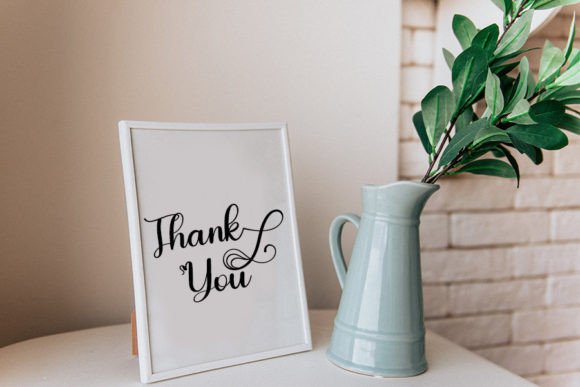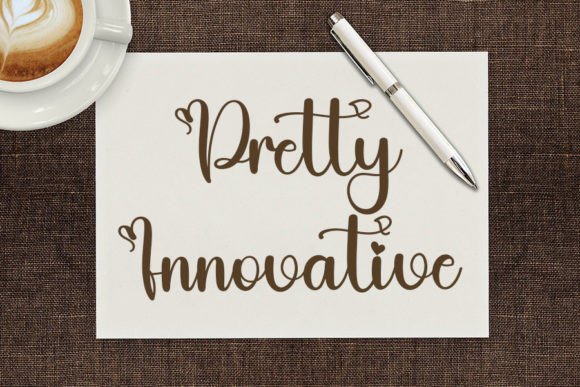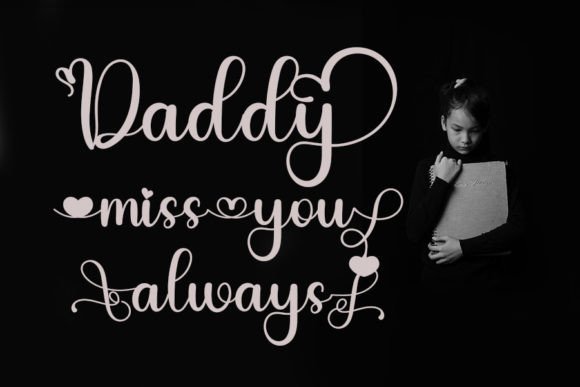
About Darling Font
Introducing Darling, a trendy handwritten font with a contemporary atmosphere and impeccable form, inspired by timeless classic calligraphy. This font is designed to add elegance and class to any of your design projects, offering a versatile style suitable for various creative needs.
The beauty of Darling lies in its trendy yet classic calligraphy, blending modern aesthetics with timeless elegance. Whether used for branding, invitations, packaging, or other creative endeavors, this font elevates the visual appeal, creating designs that are both stylish and sophisticated.
In branding, Darling becomes a refined and stylish choice. The font’s calligraphic elements contribute to a distinctive and memorable brand identity, making it stand out with elegance.
Invitations adorned with Darling carry an air of sophistication. Whether for weddings, events, or formal gatherings, the font adds a touch of refinement, setting the tone for a stylish celebration.
Packaging designs benefit from Darling’s versatile and elegant style. The font enhances the premium feel of your products, making them more visually appealing to a discerning audience.
Darling is designed to ensure that your designs exude elegance and class. Its contemporary atmosphere and timeless calligraphy make it suitable for a wide range of applications, allowing you to write various kinds of products according to the aspect of each need.
Whether you’re working on digital designs or print materials, Darling is crafted to make a visual impact. In conclusion, Darling is a trendy handwritten font that brings a touch of timeless elegance to your designs. Choose Darling to add sophistication and class to your branding, invitations, packaging, and more, creating visually stunning and memorable outcomes.